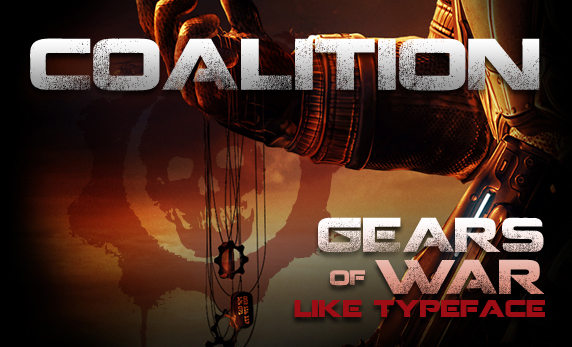
Prepare yourself for Coalition Font, a display typeface that bursts with the raw energy of techno and the futuristic vision of sci-fi. Inspired by the gritty world of Gears of War, this font is ready to conquer your designs with its bold and unapologetic style.
Coalition Font is not just another font; it's a portal to a realm where imagination and technology collide. Its sharp angles and geometric precision evoke a sense of power and determination, while its flowing curves hint at the boundless possibilities of the digital age. With Coalition Font, you have the key to unlock a universe of creativity.
Immerse yourself in the world of Coalition Font and discover a font that is as versatile as it is distinctive. Whether you're crafting logos that demand attention, crafting eye-catching posters that ignite imaginations, or designing websites that transport users to another dimension, Coalition Font is your fearless ally.
Don't settle for ordinary fonts that blend into the background. Embrace the audacity of Coalition Font and watch your designs transform into captivating masterpieces. Let your message break free from the mundane and soar into the realm of the extraordinary.
Coalition Font is more than just a collection of letters; it's a gateway to expressing your individuality. Unleash your creativity and let the power of Coalition Font elevate your designs to new heights. Join the ranks of those who dare to be different and experience the transformative power of a font that refuses to be ignored.